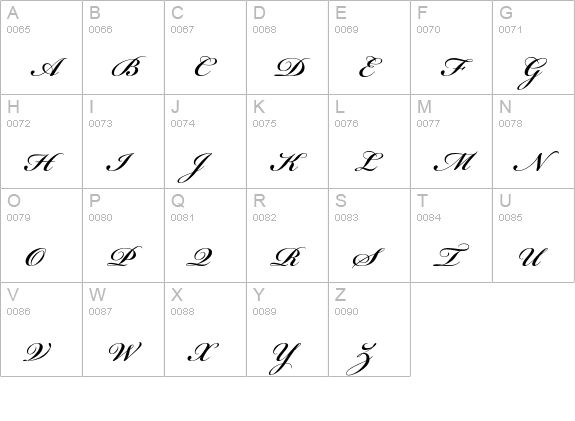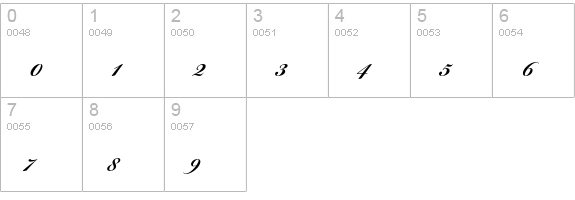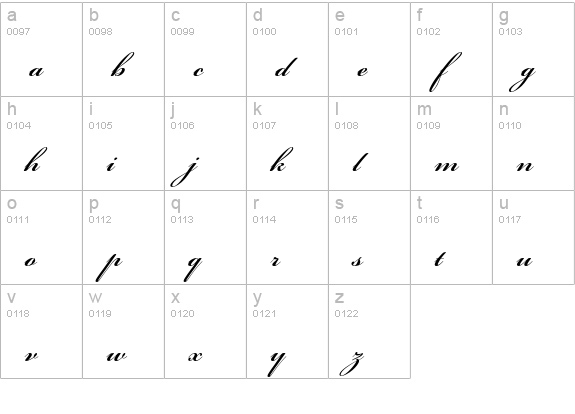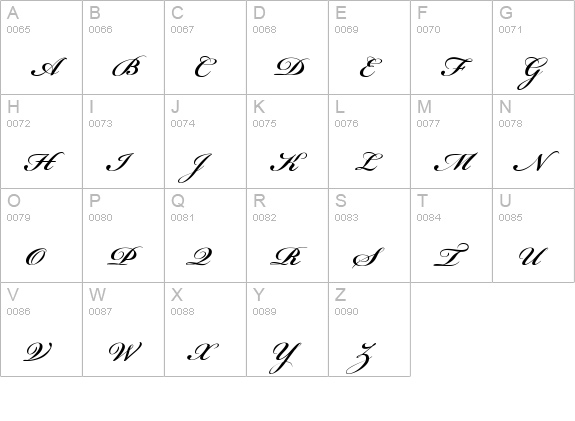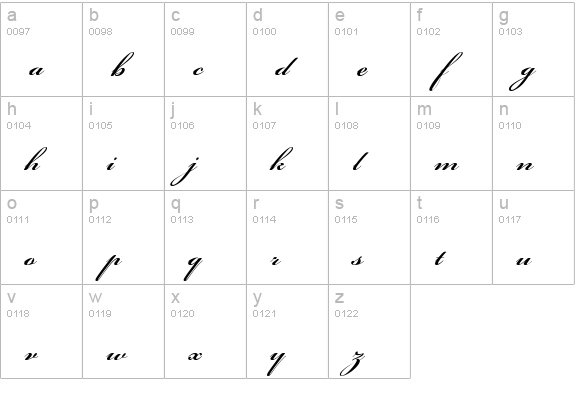
Bickham Script Pro Semibold is a sub-bold, structured variant in the Bickham typeface family \xE2\x80\x94 well suited to sub-headlines and emphasised passages.
Bickham Script Pro Semibold is a versatile and elegant font that exudes sophistication and charm. With its refined curves and intricate details, this font is perfect for adding a touch of luxury to any project. The semibold weight of Bickham Script Pro adds a sense of gravitas and presence, making it ideal for headlines, invitations, and other important text. And the best part? Bickham Script Pro Semibold is available for free download at FontsMarket.com. Now you can easily access this stunning font and elevate your designs with its timeless beauty. Whether you're working on a wedding invitation, a branding project, or a special event poster, Bickham Script Pro Semibold is sure to make a statement and leave a lasting impression. Download it today and bring a touch of elegance to your next design project.